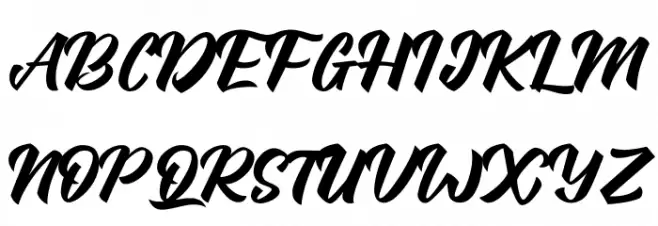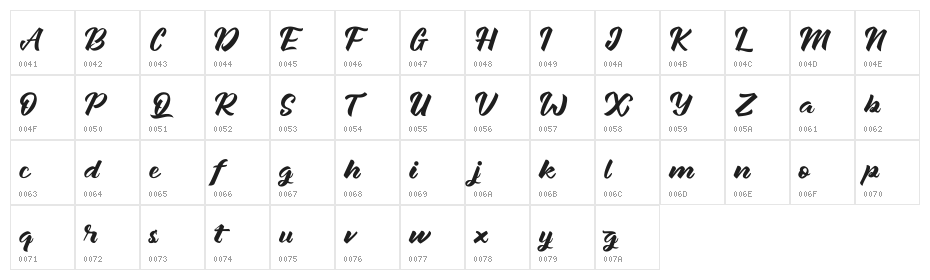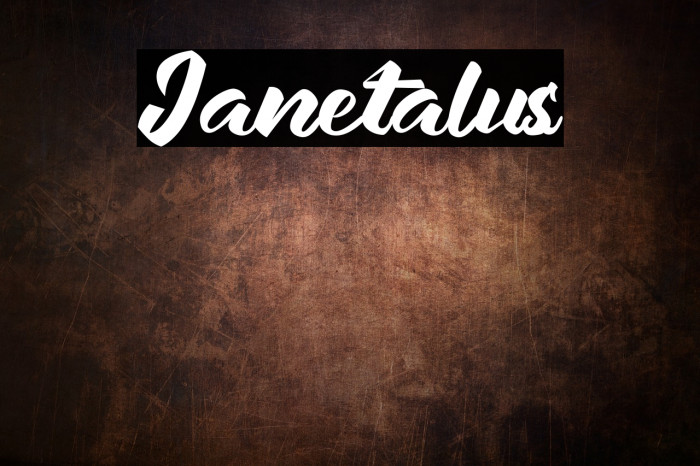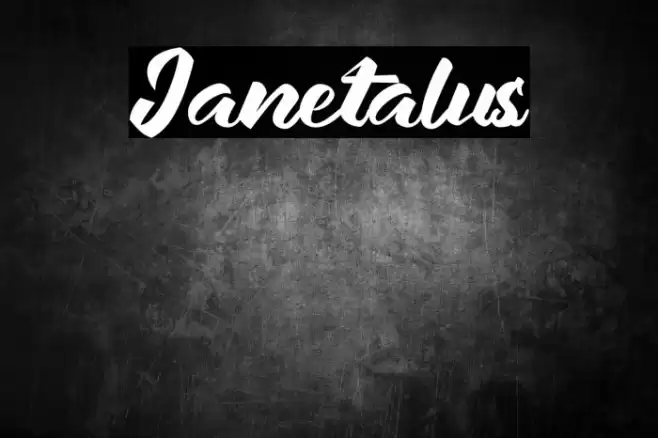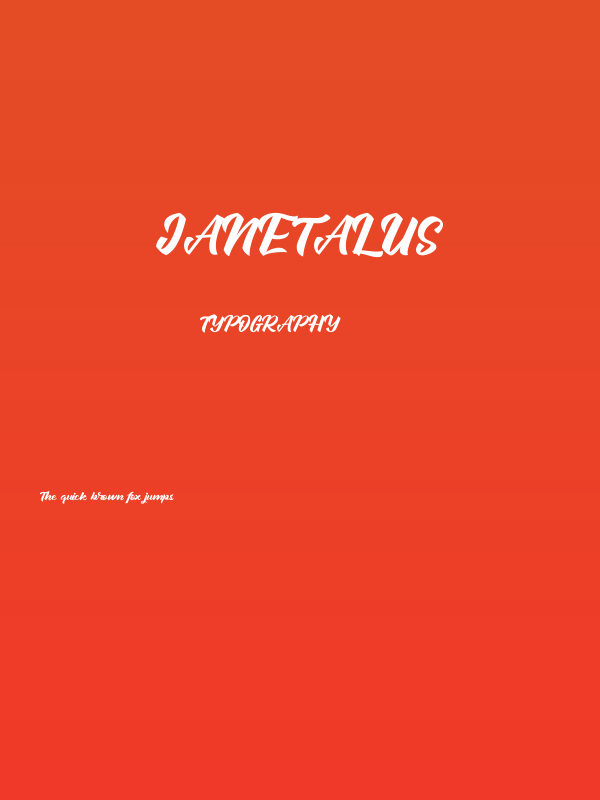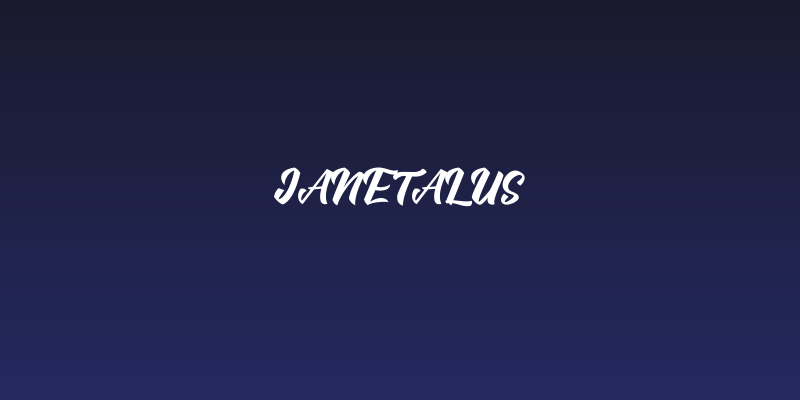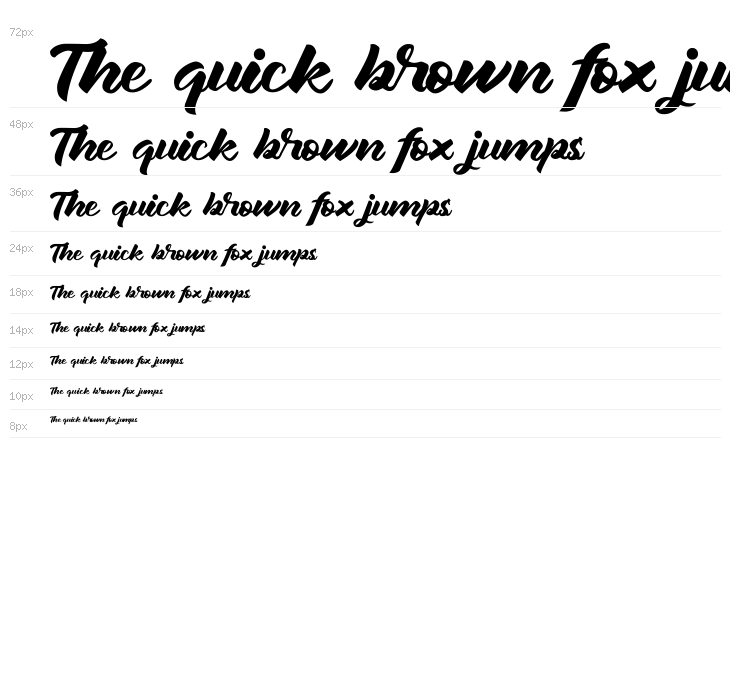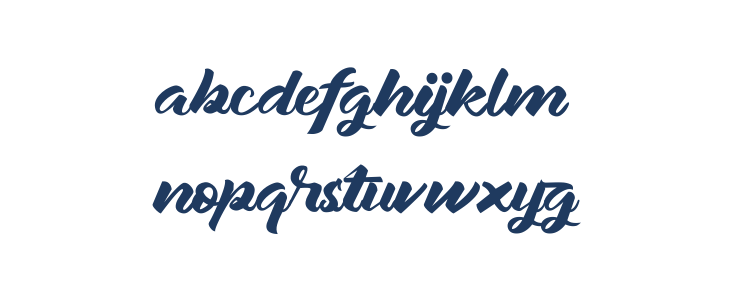
Janetalus Font
Janetalus Description
This font features a bold, cursive style with a strong presence and fluid strokes. The uppercase letters are elegantly designed with sweeping curves and a slight slant, giving a dynamic and energetic feel. The lowercase letters maintain a consistent flow, enhancing readability while retaining a stylish appearance. The font's thick strokes and smooth transitions between characters create a cohesive and visually appealing look. Its decorative nature makes it suitable for creative projects that require a touch of sophistication and flair.